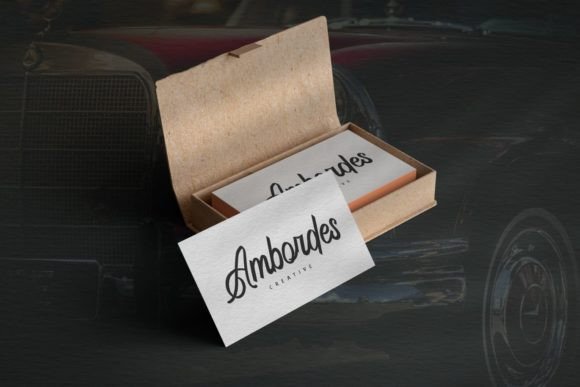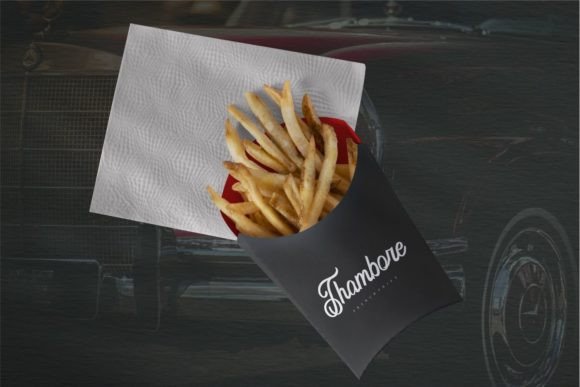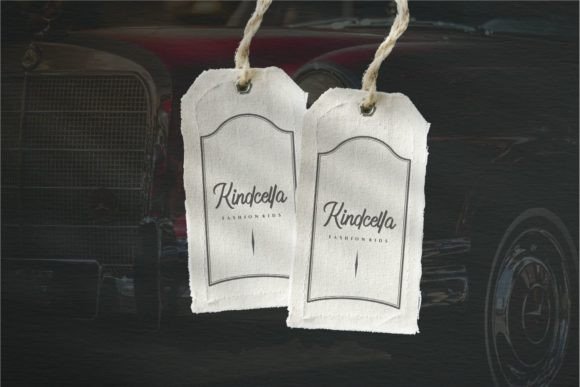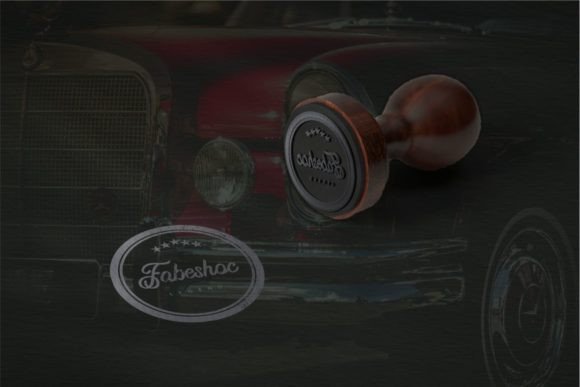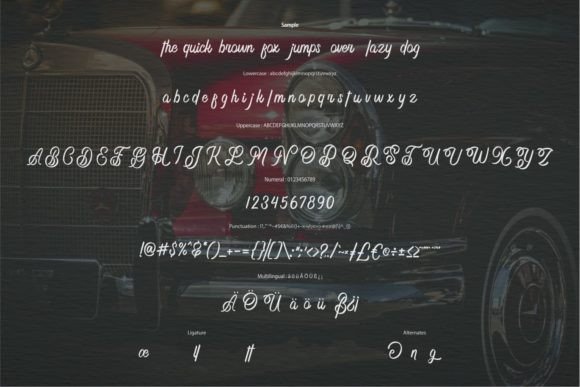
Introduction to Ninegine Font
Ninegine is a modern script font with a calligraphy style.
It will look so beautiful on invitations, greeting cards, branding materials, business cards, quotes, posters, and more .
Key Features of Ninegine Font